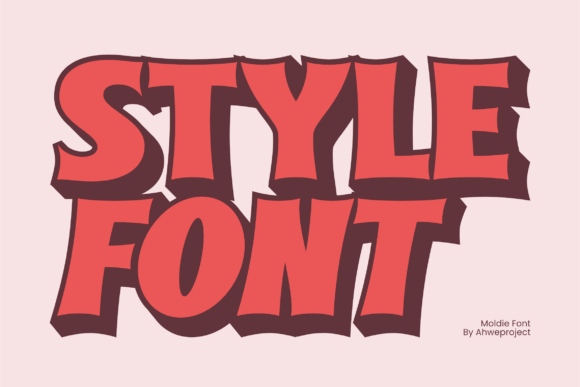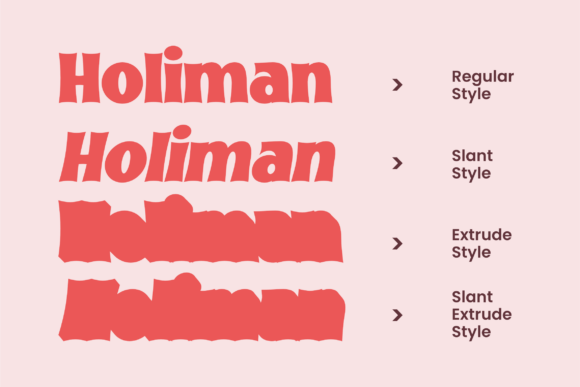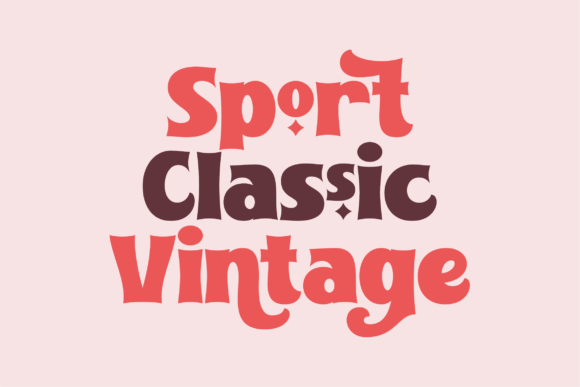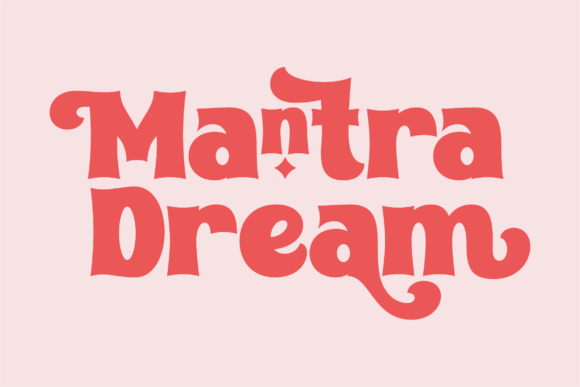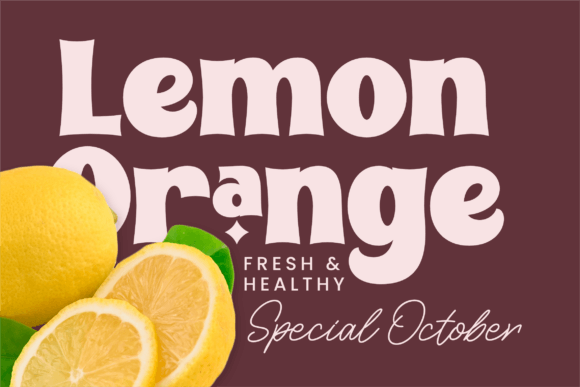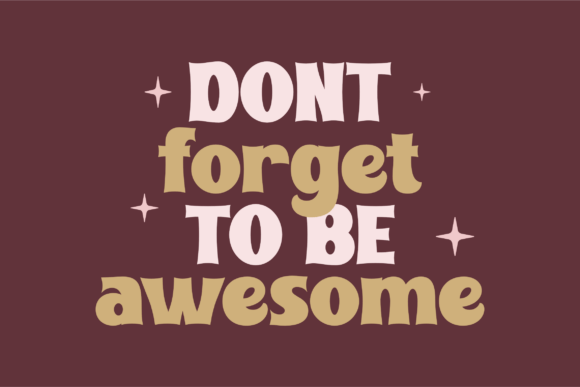
Introduction to Moldie Font
Moldie is a playful and bold retro serif font that brings a nostalgic yet fun vibe to any design.
With its thick, rounded edges and dynamic curves, it stands out with a quirky personality perfect for eye-catching headlines, logos, or packaging The layered effect adds depth, while the soft serifs maintain a friendly and approachable feel.
Key Features of Moldie Font